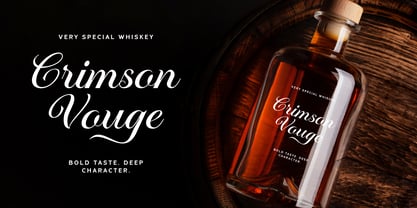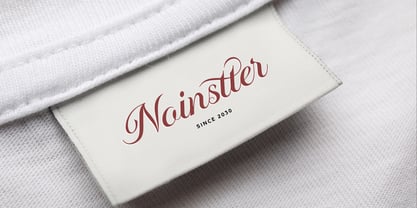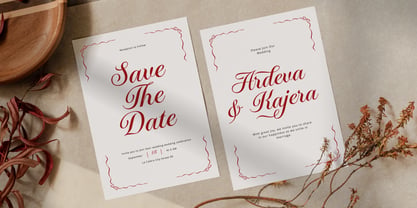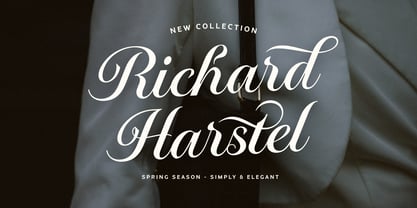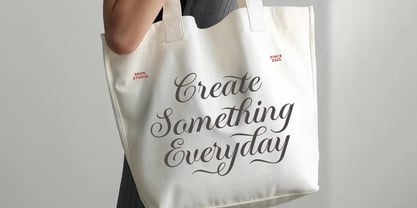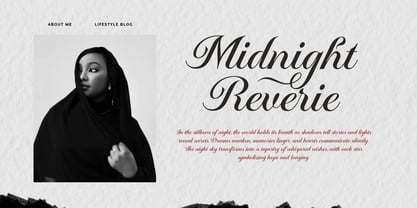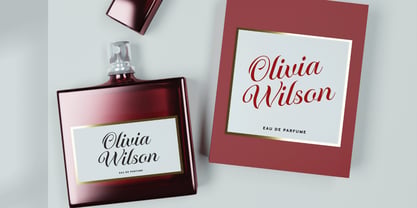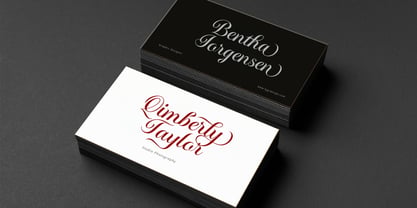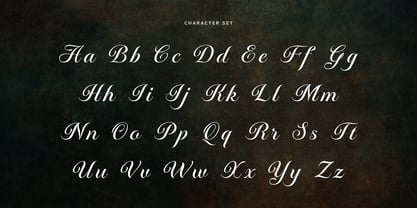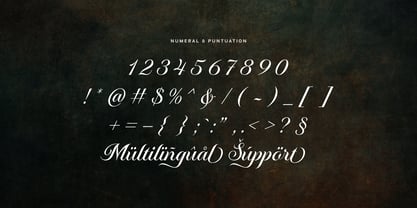
Runethia
by Sronstudio
The Runethia Font Family was designed by Muhamad Yusron Billah and published by Sronstudio. Runethia contains 1 styles. More about this family
Runethia is an elegant calligraphy font that captures grace, beauty, and timeless sophistication. With its flowing strokes, delicate curves, and refined details, this font is perfect for wedding invitations, luxury branding, logos, packaging, and romantic designs. Runethia brings a soft yet expressive calligraphic touch, making every word feel personal and beautifully crafted. What’s Included: - Swash Alternates - ligatures - Numerals & punctuation - PUA encoded for easy access - Multilingual support - Works seamlessly on Mac & Windows Thank you very much 🙂
Designers: Muhamad Yusron Billah
Foundry: Sronstudio